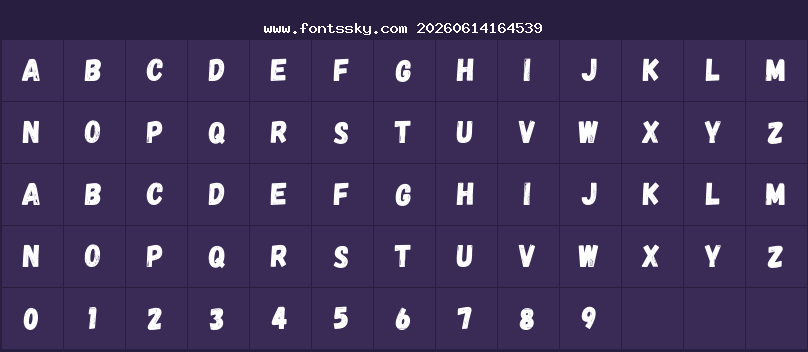
Gagalin Preview
• Font Name: Gagalin
• Font ID: 1.000;UKWN;Gagalin-Regular
• Full Font Name: Gagalin-Regular
• Version: Version 1.000;PS 000.000;hotconv 1.0.88;makeotf.lib2.5.64775
• PostScript Name: Gagalin-Regular
• Character Count: 492
• Designer: Iordanis Passas
• Manufacturer: Fontfabric LLC
About Gagalin.otf
Gagalin.otf is a modern, elegant sans-serif font designed for ultimate readability and visual harmony. Perfect for branding, headlines, web design, and print materials.